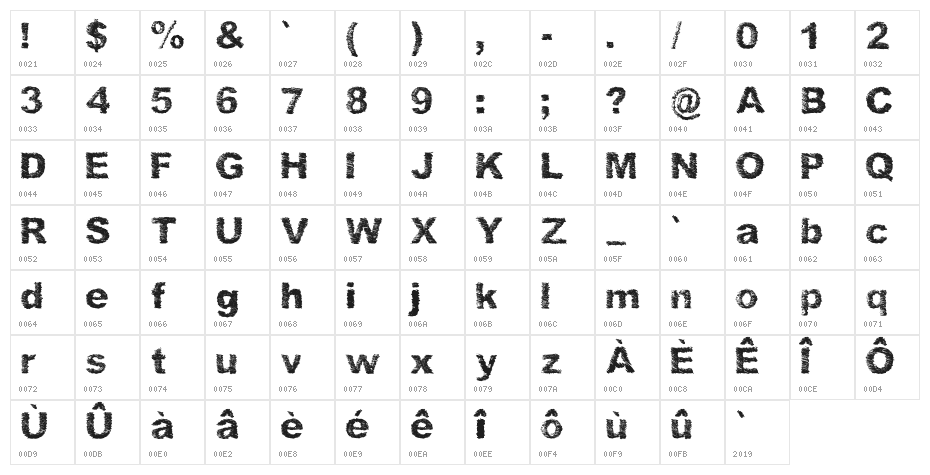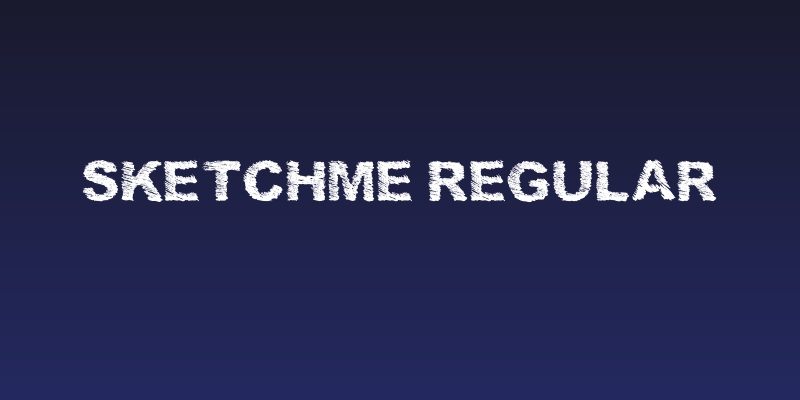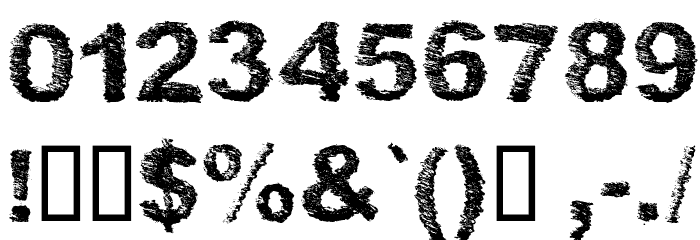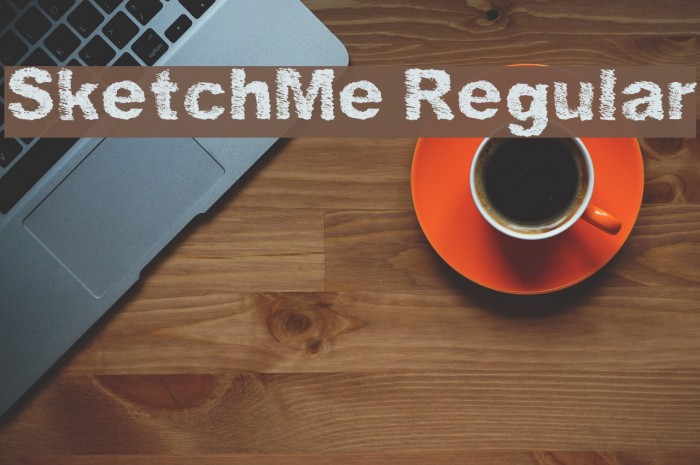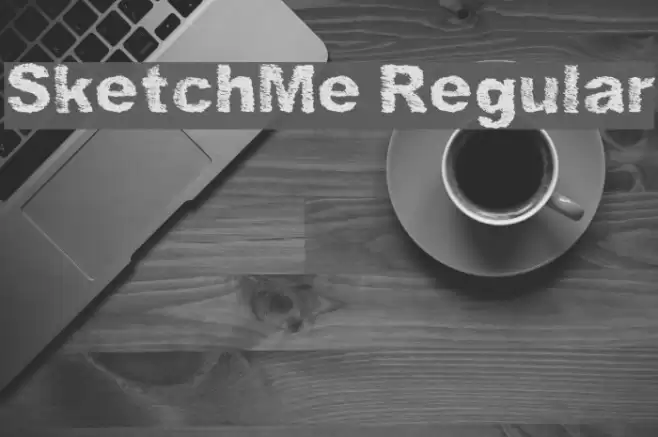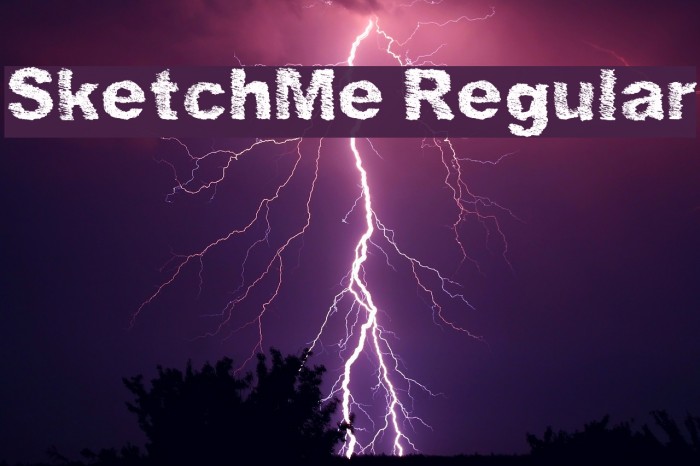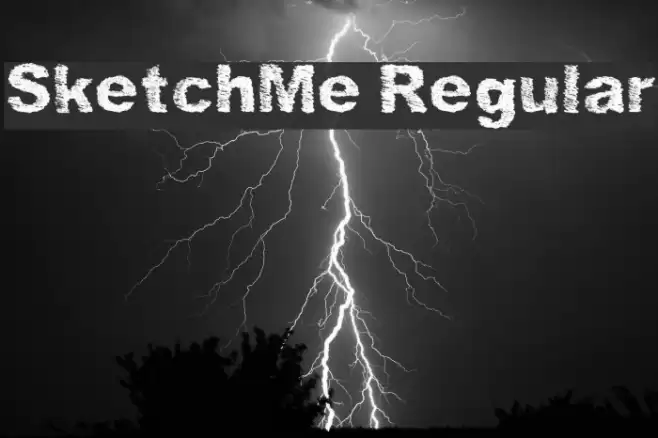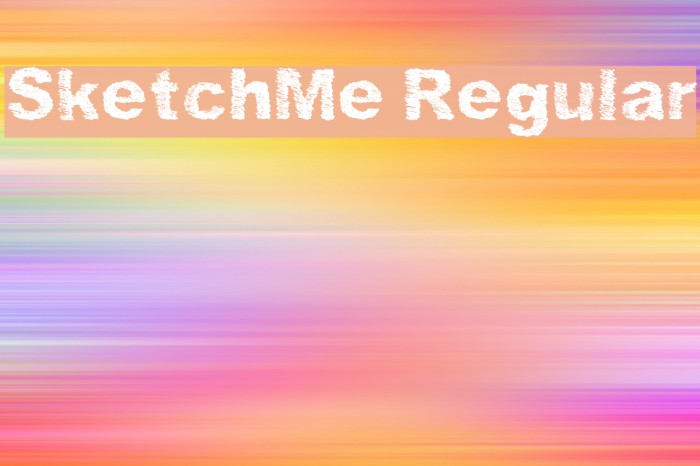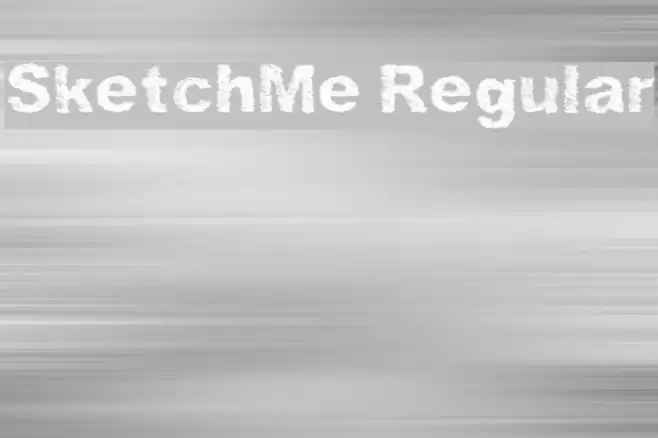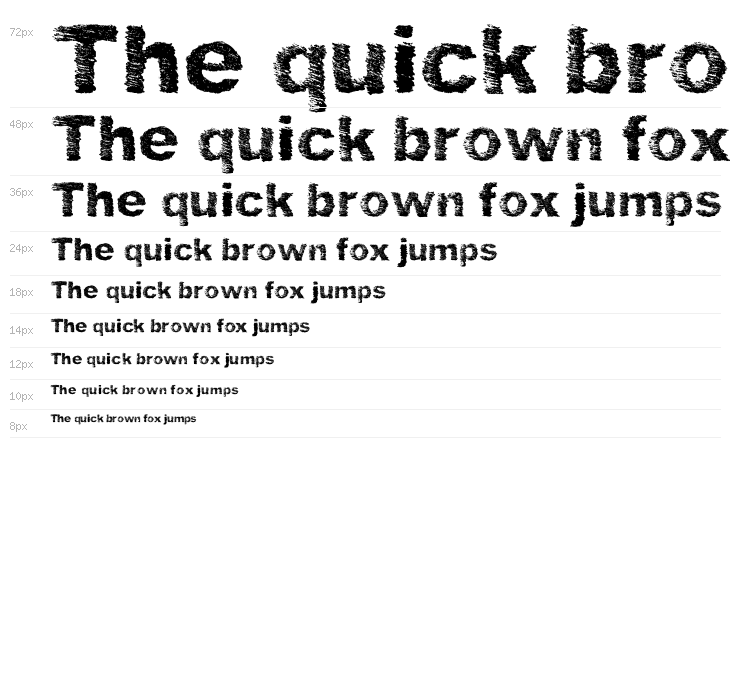
SketchMe Regular Font
SketchMe Regular Description
This font features a unique, hand-drawn aesthetic that mimics the look of a sketch or crayon drawing. Each character is filled with textured, irregular strokes that give it a playful and artistic feel. The letters are bold and have a slightly rough edge, adding to the informal and creative vibe. The uppercase and lowercase letters maintain consistent proportions, while numbers and special characters are designed to match the overall style. This font is ideal for projects that require a touch of whimsy and creativity, such as children's books, artistic posters, or casual branding.
| Overall Style | Artistic, Playful |
| Proposed Projects | Ideal for children's books, artistic posters, casual branding, and creative projects. |